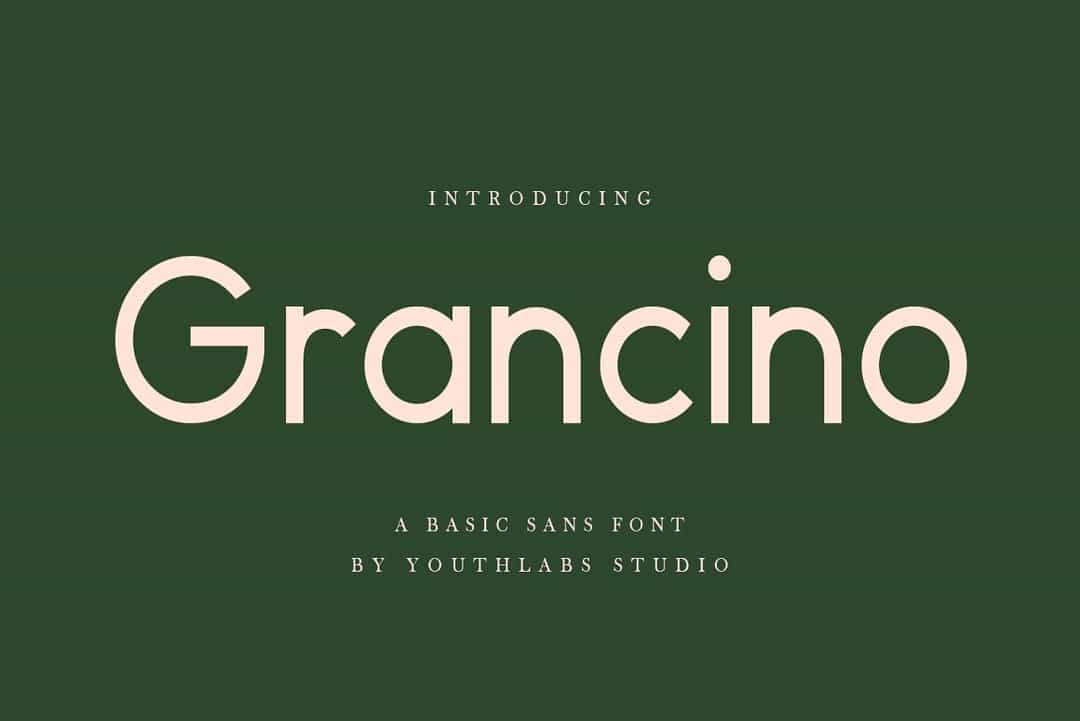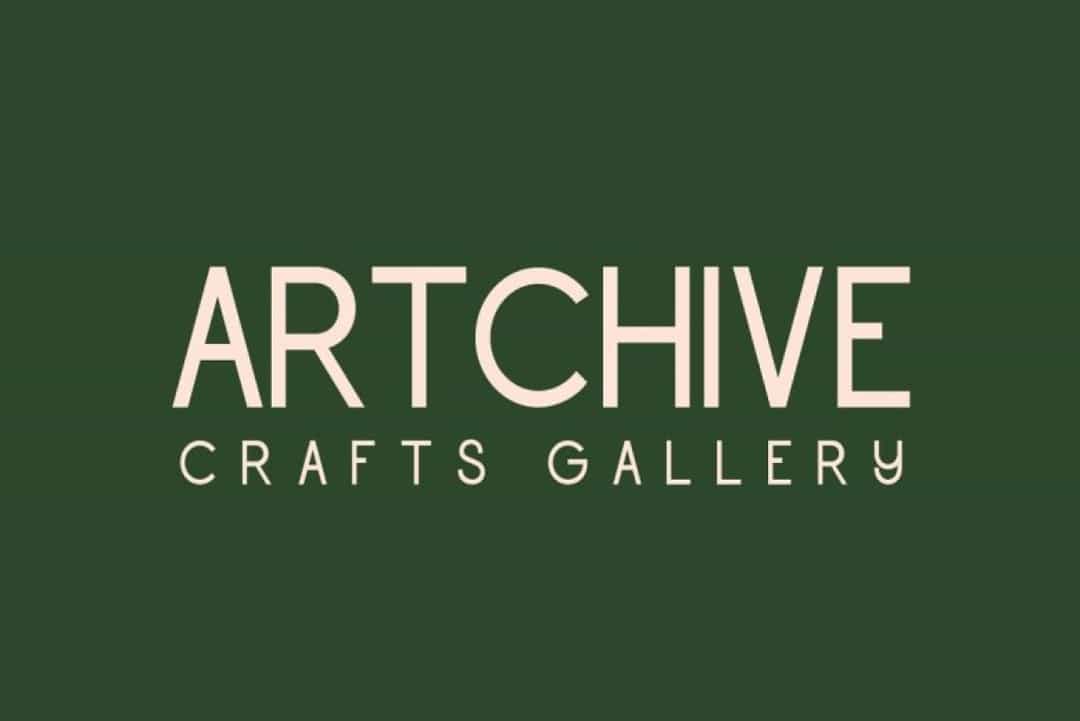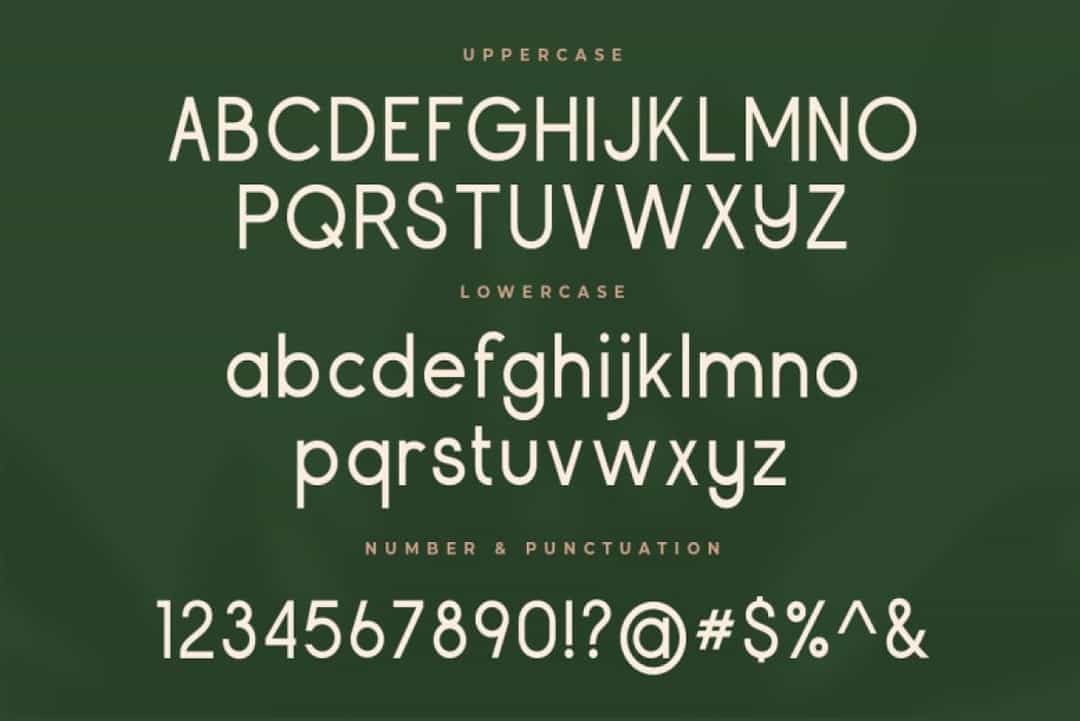
Grancino is an elegant yet sophisticated sans serif font that can help bring any design together with striking and attractive appearances. Perfect for product logo designs as well as catalogs, magazines and lookbooks; Grancino helps convey messages clearly while leaving an indelible mark with its visual impact.